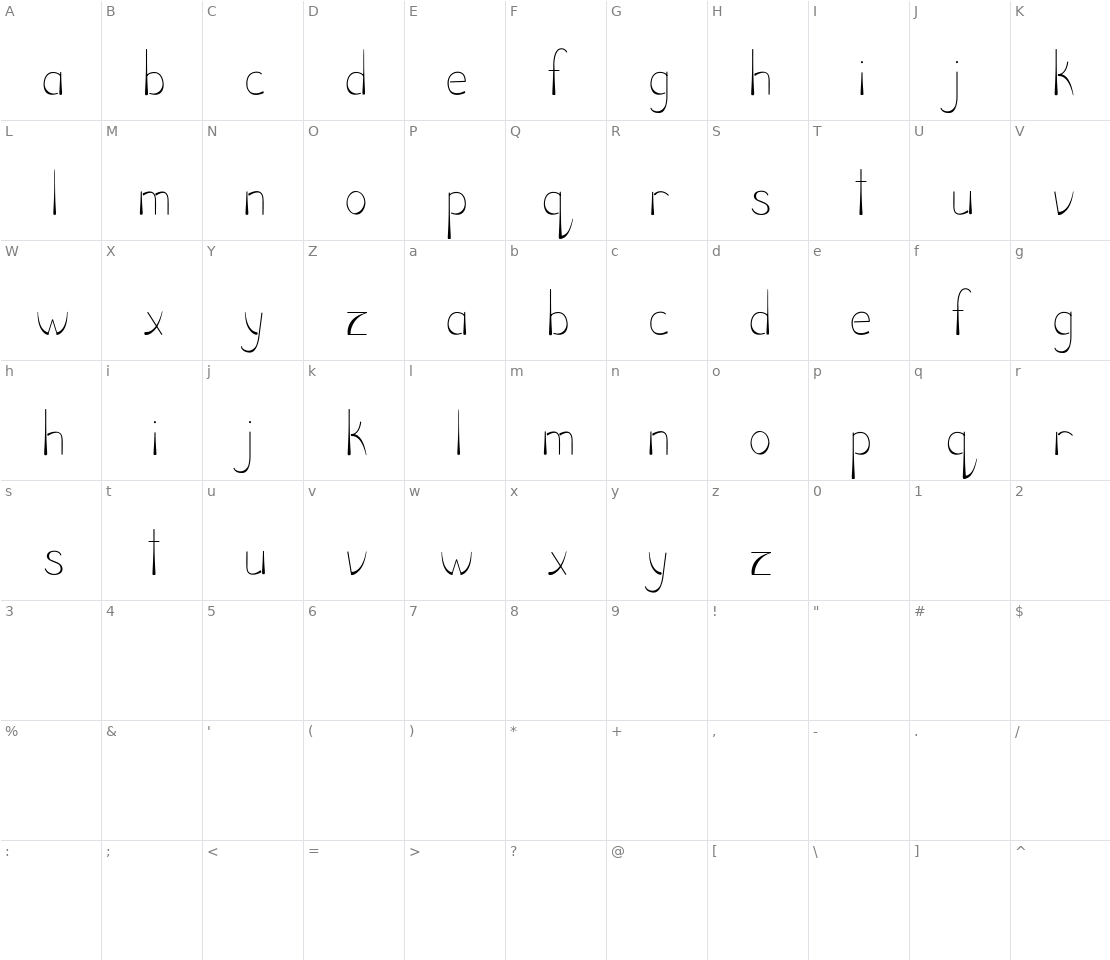
Diligent
by Michelle Robb
Diligent is an ultralight condensed sans-serif by Michelle Robb, with razor-thin strokes and narrow proportions that give it a quiet, refined elegance. The lowercase-focused letterforms feel modern and deliberately restrained, relying on whitespace and delicate geometry to create presence. Best at large sizes for headlines, editorial layouts, and minimalist branding where every gram of visual weight counts.